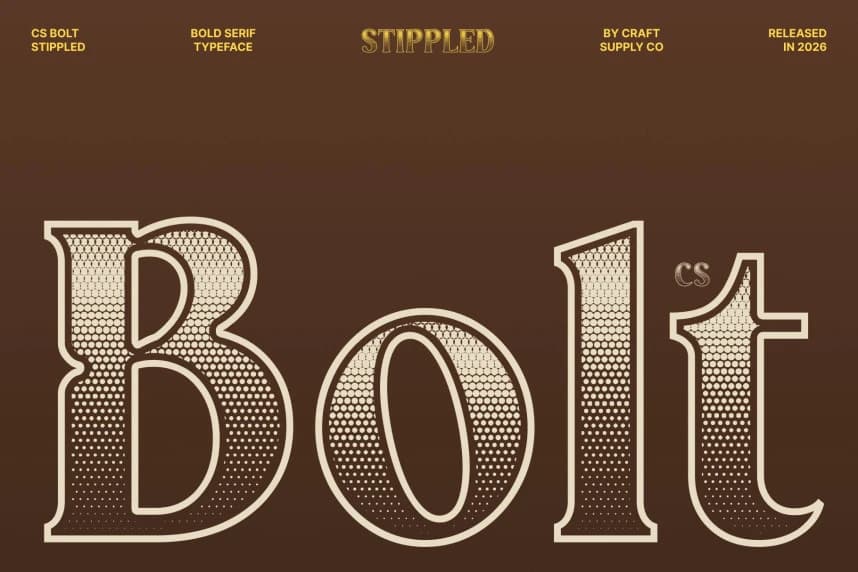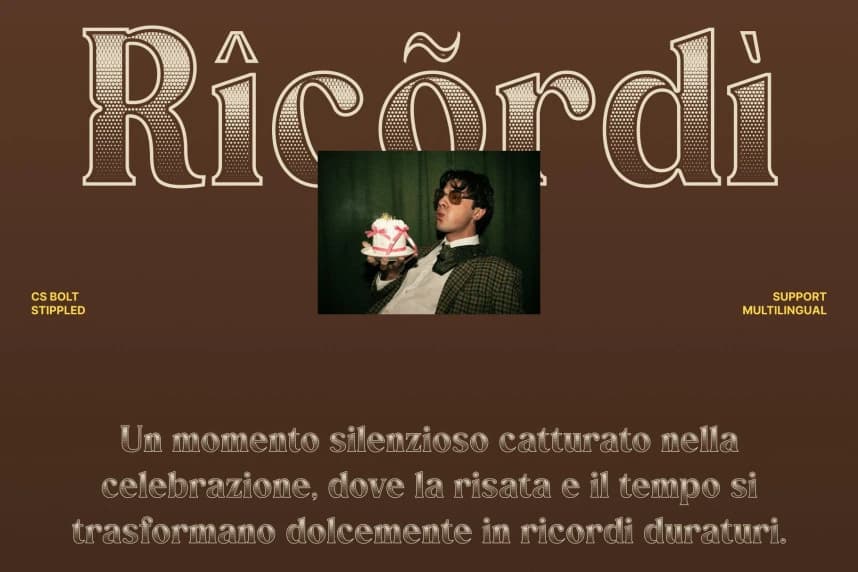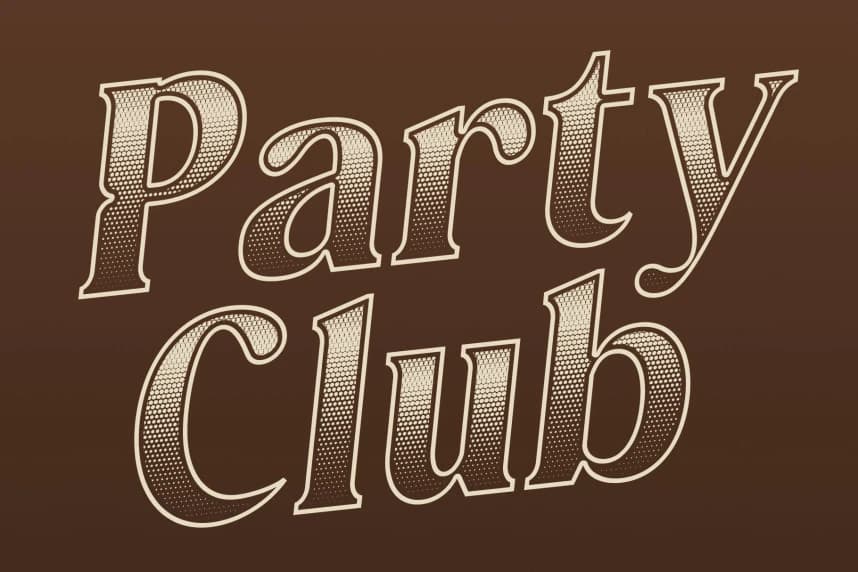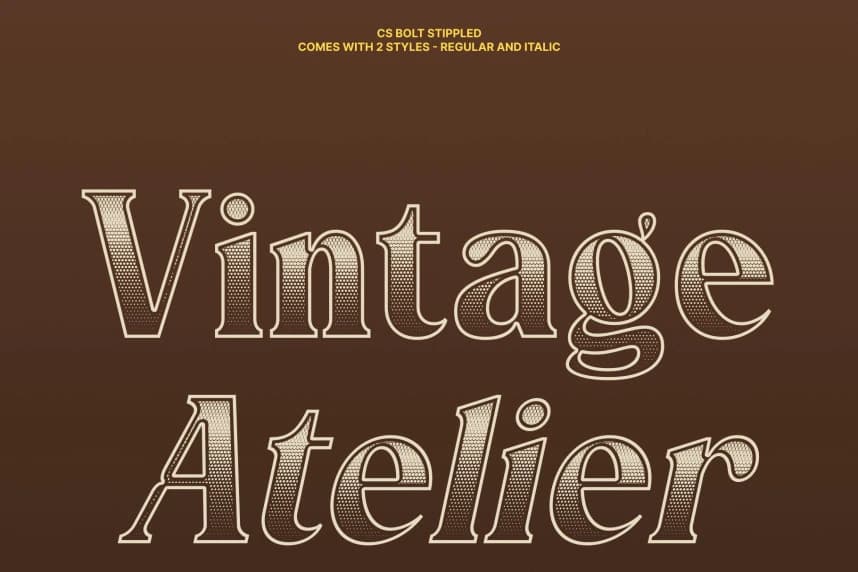
CS Bolt Stippled Font
CS Bolt Stippled Font – Bold Serif with Confident Modern Strength Bold Serif with Powerful Presence. This is a bold serif font built to command attention through strong weight and confident structure.